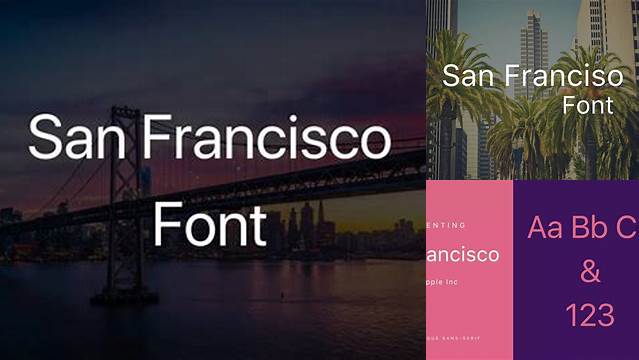
Why San Francisco Font is a Big Deal
The San Francisco font isn't just any typeface; it's a symbol of modern design and technological innovation. It's the official font of Apple, and it's used across all of their products and platforms. Think about your iPhone, your Mac, or even Apple Watch – that's San Francisco! But what makes this font so special? Well, for starters, it's incredibly versatile. It looks clean and professional on both screens and in print. It's also highly legible, even at small sizes, which is crucial for user interfaces and digital displays. Furthermore, the San Francisco font has a distinct personality. It's friendly, approachable, and a bit futuristic, which perfectly aligns with Apple's brand identity. Downloading and using this font can significantly elevate the visual appeal of your designs, giving them a touch of sophistication and modernity. Whether you're working on a website, a mobile app, or even a presentation, the San Francisco font can make your content stand out. Moreover, understanding the nuances of this font allows you to appreciate the subtle art of typography and how it can influence the way your message is perceived. The attention to detail in the design of each character, the careful balance of weight and spacing, all contribute to a cohesive and visually pleasing experience. So, if you're aiming to create designs that are both functional and aesthetically pleasing, embracing the San Francisco font could be your next best step.
If you're aiming to create designs that are both functional and aesthetically pleasing, embracing the San Francisco font could be your next best step. Understanding its history, its purpose, and how it shapes your designs gives you an edge in creating visually stunning and highly effective projects. Ready to download it? Let's get into it!
Using the San Francisco Font in Your Designs
Once you've successfully installed the San Francisco font, it's time to start using it in your designs! The beauty of this font is its versatility. You can use it for almost anything! Think of it as the perfect foundation for your designs. In a website, the San Francisco font is a great choice for headings, body text, and even navigation menus. Its clean lines and modern appearance make it easy to read and give your website a polished look. Ensure you use the right weight and size to maintain readability. For a mobile app, the San Francisco font works wonders. Its high legibility makes it ideal for user interfaces. It also offers an immediate feel of modernity and coherence. Use it in buttons, labels, and text fields to create a consistent and user-friendly experience. In print, the San Francisco font is great for brochures, posters, and presentations. Just be sure to use the correct font weights and sizes depending on your project. Always consider the context of your design. For instance, using the bold version of the font for headlines and the regular version for body text can create visual hierarchy. Experiment with different weights and sizes to see what works best for your project. Don't be afraid to explore different combinations and styles. For example, using the light version of the font can add a touch of elegance to your design. Remember to maintain consistency throughout your design. Using the same font for all elements of your design creates a harmonious look and feel. Choose the right font size, based on the reading distance. If you are designing for digital screens, consider the screen resolution. These factors will help you ensure your content is easily readable on any device. By using the San Francisco font in your designs, you can achieve a modern and professional look. Taking the time to experiment with its various styles and weights can create unique and engaging designs.
San Francisco Font Alternatives
So, maybe you can't get the official San Francisco font, or maybe you're looking for something similar but a little different. No worries! There are some fantastic alternatives out there that capture the same aesthetic. One popular option is Roboto. This font has a geometric design with a friendly feel and is often used for Android interfaces. Its clean and contemporary look makes it a great substitute. Another great option is Open Sans. With its open and neutral style, it works great in a wide array of projects. It's also highly readable on screens and is a strong choice. If you want something similar, but with a bit of a twist, consider Lato. This font offers a blend of warmth and reliability, which makes it a good choice for various design needs. Also, it is highly legible and versatile, which makes it a great choice. You should evaluate the license of each alternative. Always check the license of the font you're considering. Some fonts are free for commercial use, while others may have restrictions. This ensures that you comply with all legal requirements. When you select an alternative, think about the purpose of your design. Select a font that fits the tone and message. Compare several alternatives before making your decision. Check their characteristics and evaluate what each of them offers. Experiment with different fonts to see which one best suits your needs. If you are having trouble choosing, consider asking for feedback from others to get a different perspective. The right alternative should make your design better. By using these alternative fonts, you can achieve a modern, clean look that matches your design goals. They give you flexibility and the freedom to express your creativity. Remember to pick a font that meets your needs and design requirements. Ultimately, the goal is to find an alternative that provides a similar aesthetic and aligns with your design's overall purpose.
Tips for Using Fonts Effectively
Let's wrap things up with some quick tips on how to use fonts effectively in your projects. First, know your audience. Consider who you're designing for and choose a font that appeals to them. It is also essential to choose the right font size and weight. Make sure the text is easy to read on all devices. Create a visual hierarchy. Use different sizes and weights to guide the reader's eye. Limit the number of fonts in your design. Stick to a maximum of two or three fonts to keep it clean. Think about the contrast. Ensure that there is enough contrast between the text and the background. Test your designs. Always test your designs on various devices and browsers to check for any issues. Make sure you pay attention to kerning and spacing. Kerning involves adjusting the spaces between letters to improve readability. You should know the rules of typography. They will help you use the fonts effectively. Avoid using the wrong font size, weight, or style for your projects. These small details make a big difference. Before you finalize your design, proofread all text. Proofreading prevents typos. Follow these tips to make your designs more appealing. Consider the overall design and ensure that your font choices complement the images. Remember to be creative and express your message effectively. With these tips in mind, you can create designs that capture your audience's attention. These strategies will improve your designs. They will help you achieve professional-looking results and improve the impact of your message.